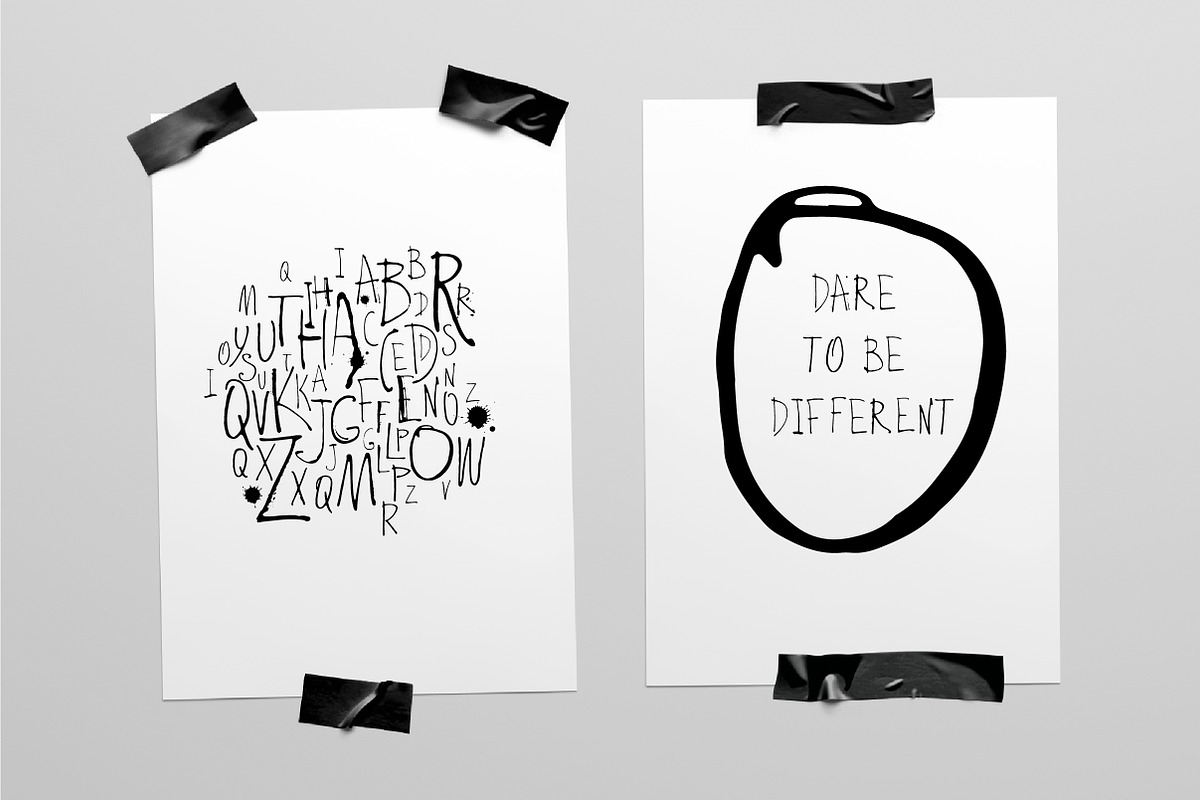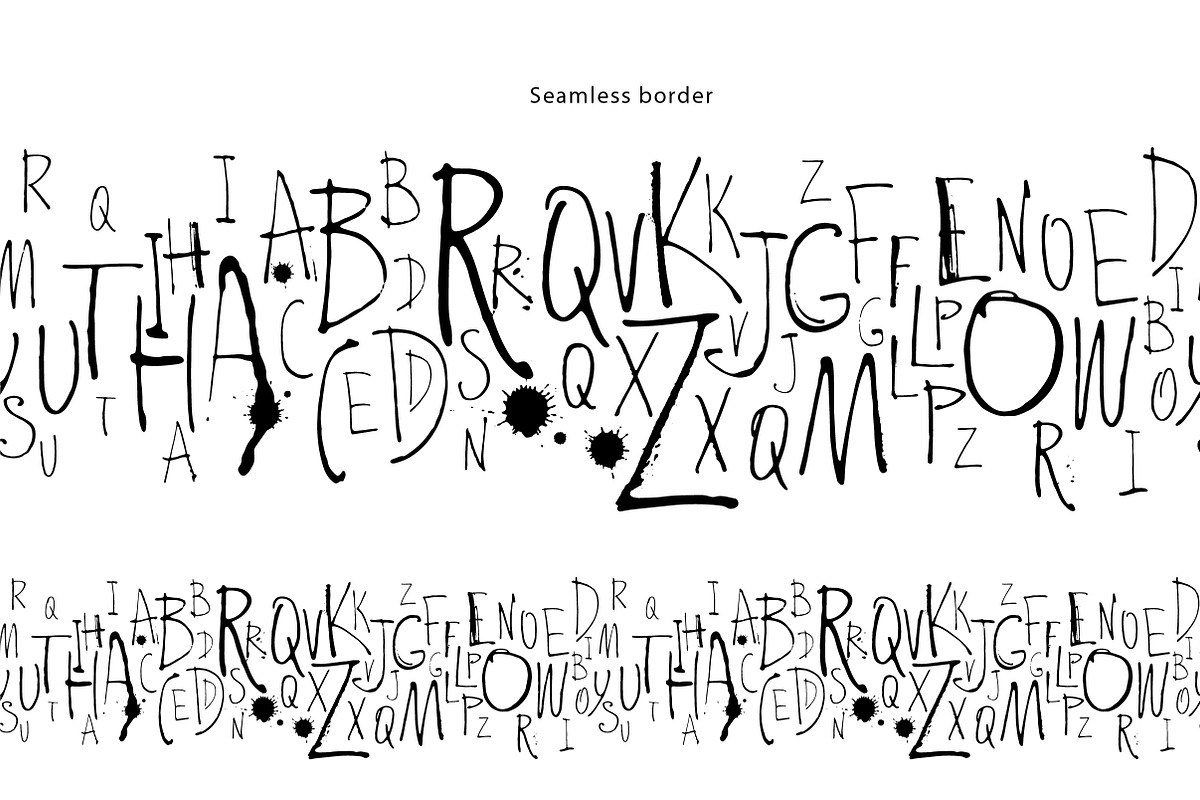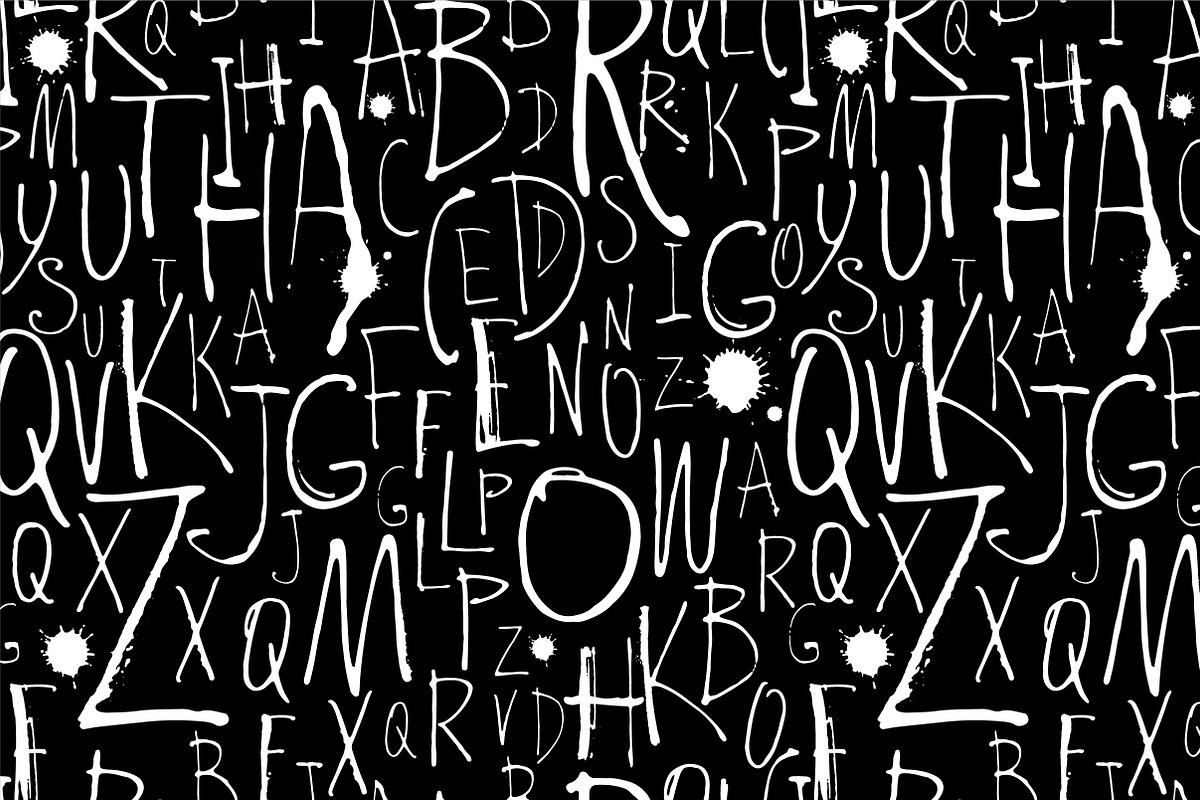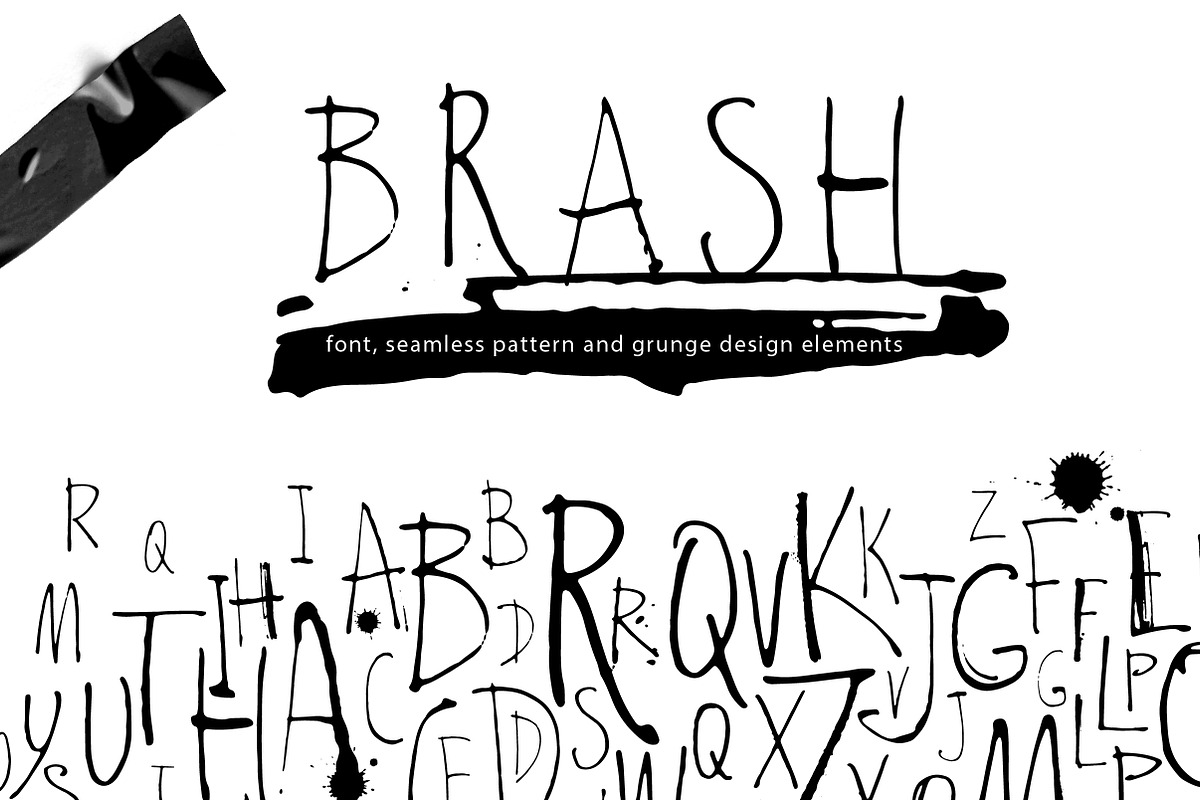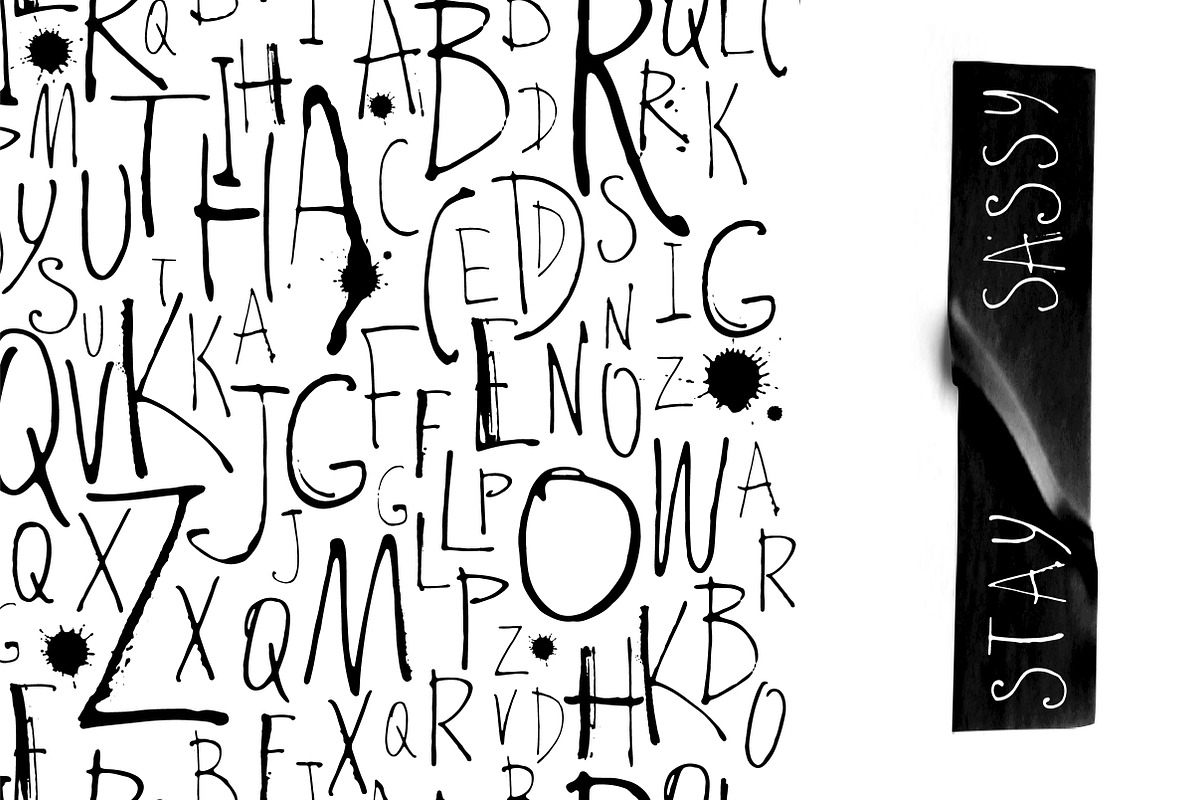
Brash Font
Brash and sassy grunge handwritten sans serif font. Ideal for magazine headlines, prints on t-shirts, posters and mugs.
Elevate your designs with the Brash and Sassy Grunge Handwritten Sans Serif Font. Its bold strokes and playful imperfections add a unique touch to magazine headlines, t-shirts, posters, and mugs. Crafted with a rebellious spirit, this font exudes confidence and character.
Captivating magazine headlines
Bold statement t-shirts
Distinctive mug designs
Target Audience: Designers, artists, and creators seeking a font with attitude. Perfect for those wanting to infuse their projects with a rebellious and bold aesthetic.
Versatile Usage: Ideal for a wide range of design projects.
High-Quality Elements: Professionally crafted for impeccable results.